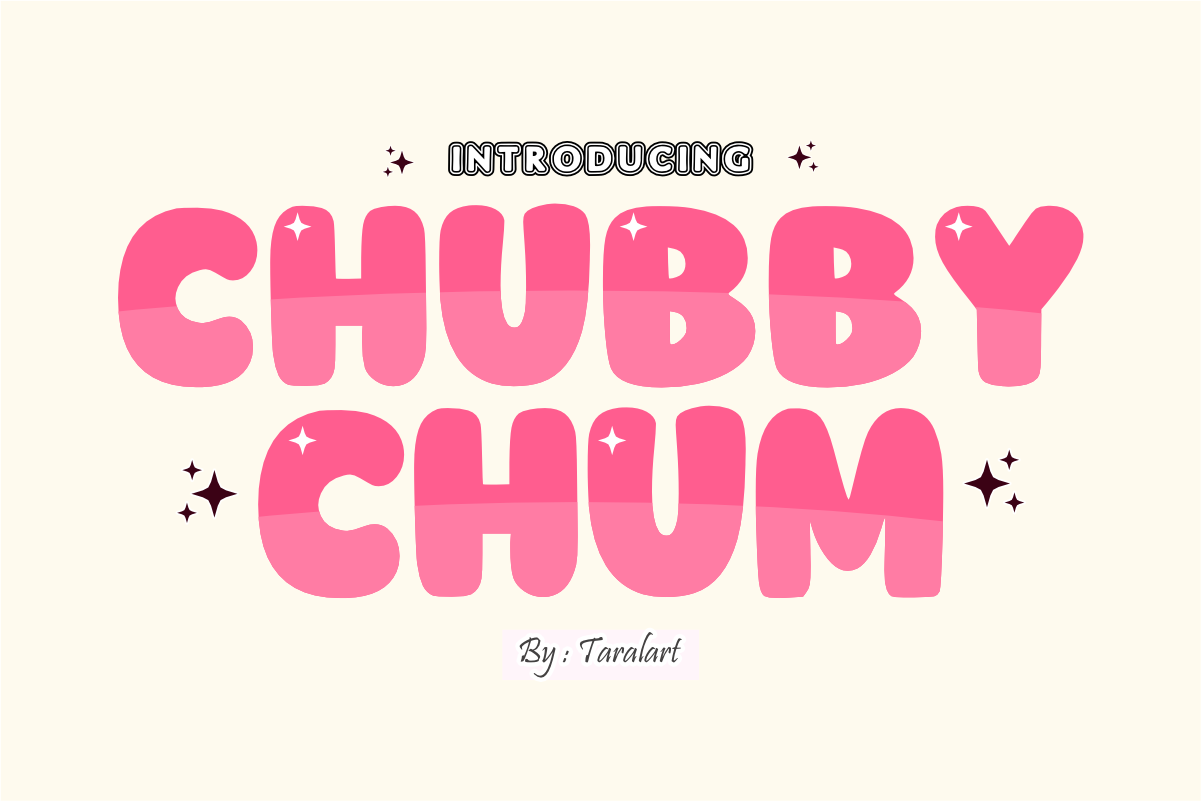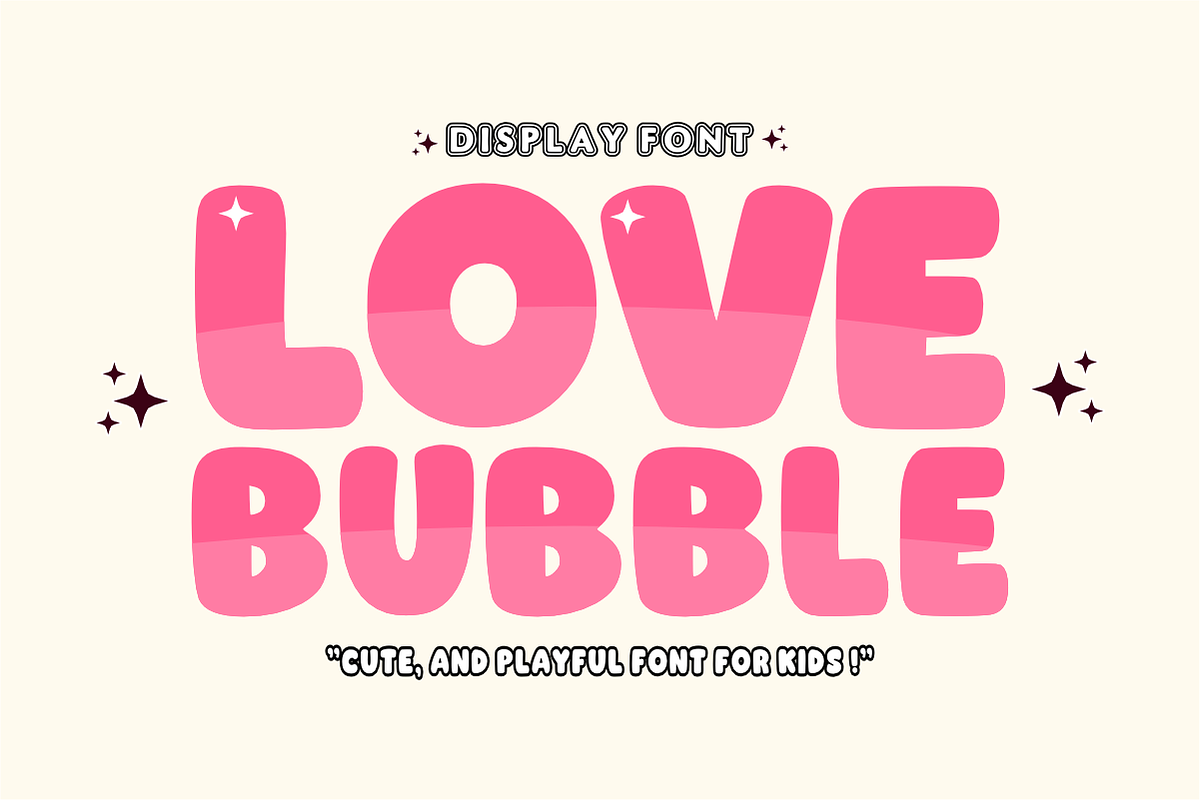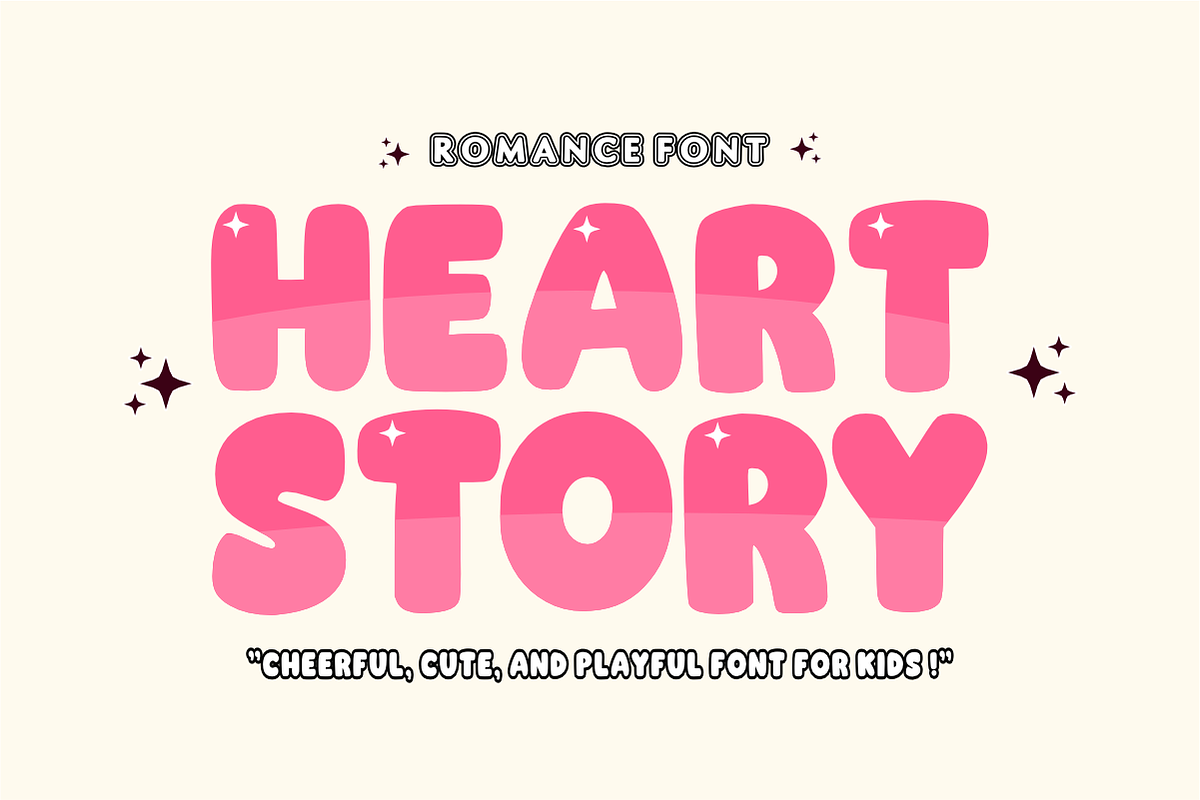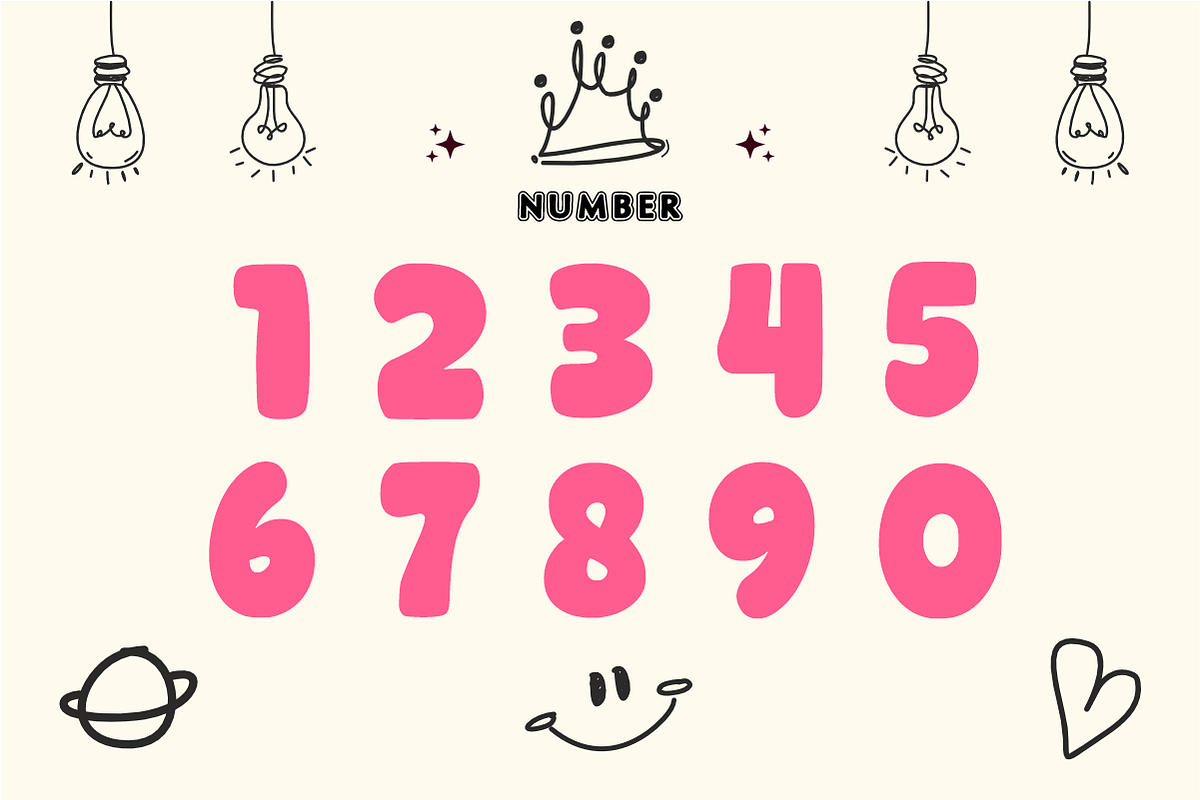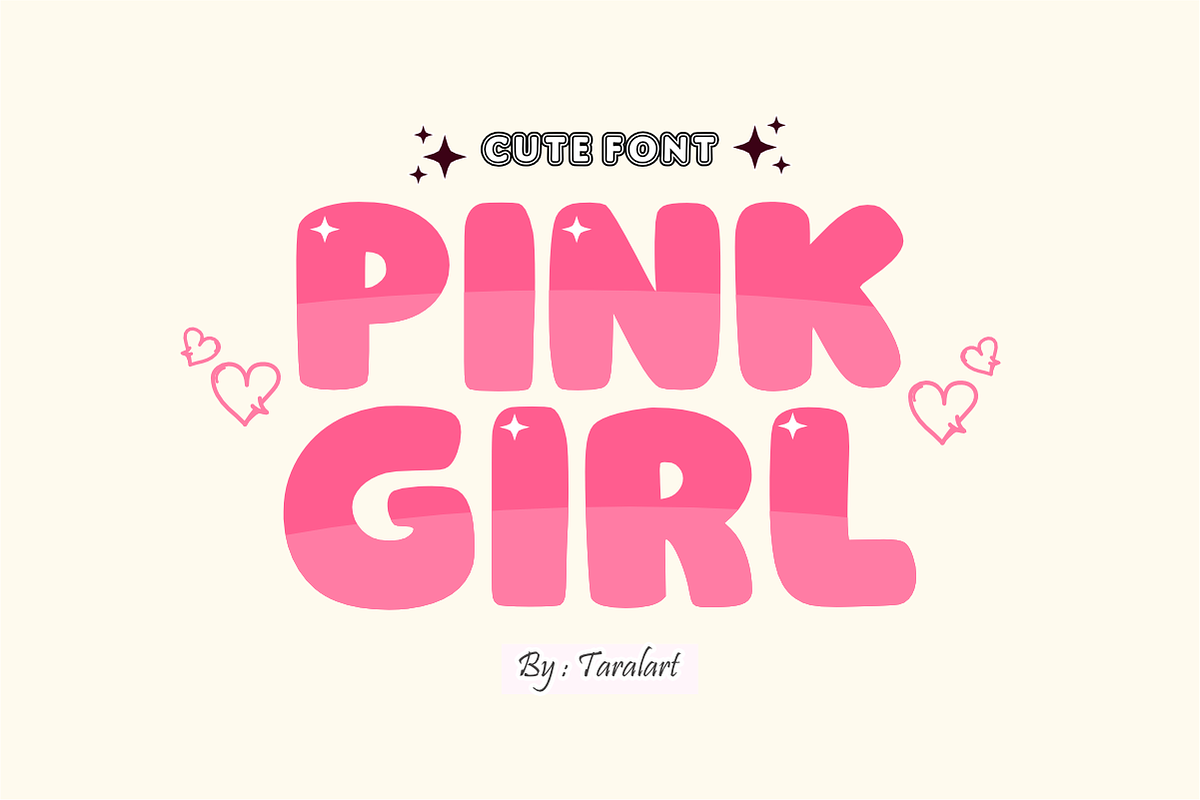
Chubby Chum - Playful Bubble Font
Chubby Chum is a sweet, ultra-chunky display font featuring bold, rounded letterforms with playful built-in highlights. Perfect for children's designs, custom stickers, and vibrant branding, this font brings a fun, energetic pop to any headline. The clean, high-quality vectors ensure smooth, effortless cutting on machines like Cricut and Silhouette.
Uppercase Character Set
Numbers & Basic Punctuation
Ideal For:
Custom die-cut stickers and planner decals
Kids' apparel and t-shirt prints
Children's book covers and playful logos
Birthday party decorations and invitations
Eye-catching social media graphics and thumbnails